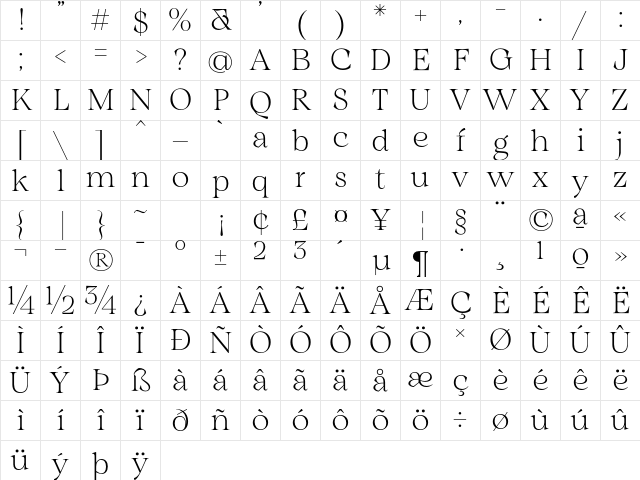
Complete Winzer Serif PERSONAL USE Thin Regular glyph index. Displaying only characters natively supported by Winzer Serif PERSONAL USE Thin Regular font.
Winzer Serif PERSONAL USE Thin carries the refined structure of traditional serif typography, with bracketed terminals and considered proportions that communicate credibility and craft. Its slender proportions lend an understated elegance to any composition.
Pro Tip: Use Winzer Serif PERSONAL USE Thin with generous line-spacing for the most refined reading experience - its light weight benefits from room between lines.